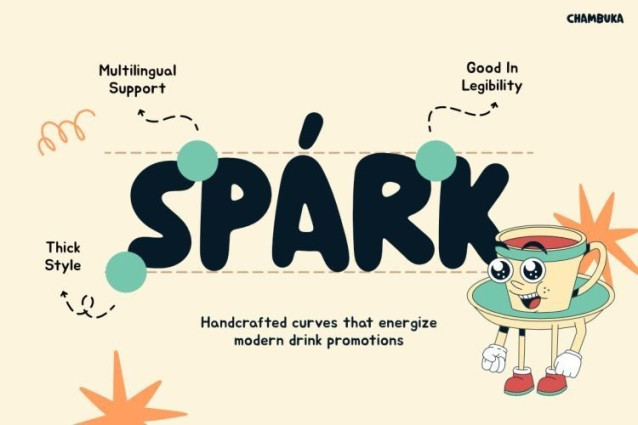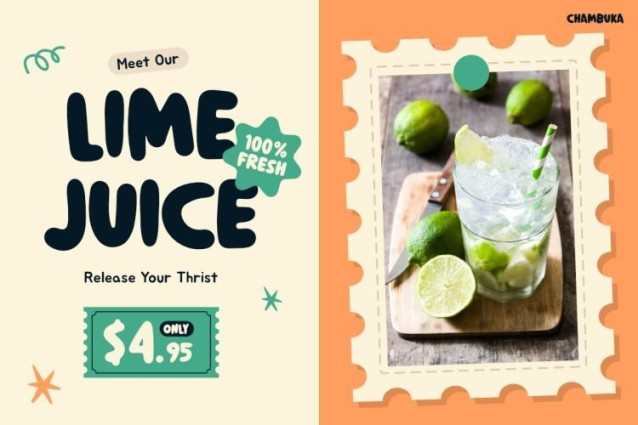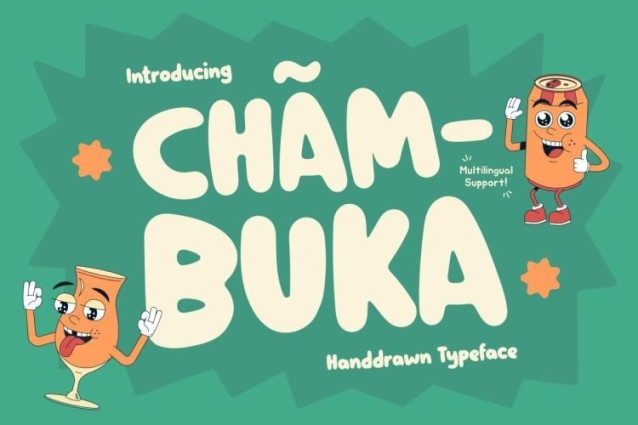
Chambuka Font
Chambuka Font is a bold, playful hand-drawn display font with soft, rounded edges and a bouncy, energetic rhythm. Its thick, organic letterforms mimic casual brushstrokes, giving any text an instant sense of warmth, fun, and handcrafted charm.
Use it for juice and beverage packaging, kids’ product labels, café menus, playful poster designs, and casual social media graphics. It is best suited for headlines, logos, and display sizes where its friendly personality and bold weight can stand out.